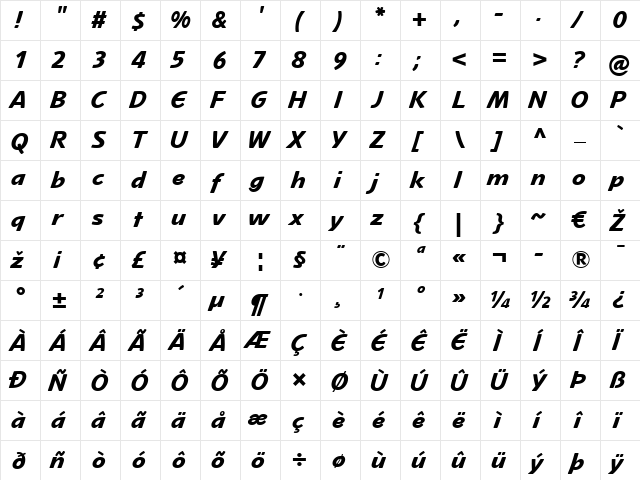
Mano LT Regular Bold
| Designer | Marco Ganz |
Design Context for Mano LT Regular Typeface
Mano LT Regular is a composed and adaptable typeface that performs quietly and consistently across a wide range of design contexts. Its bold stroke weight gives it real presence on the page.